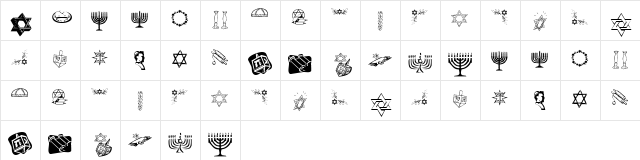
KR Happy Hanukhah Regular
Design Context for KR Happy Hanukhah Typeface
KR Happy Hanukhah is a composed and adaptable typeface that performs quietly and consistently across a wide range of design contexts.